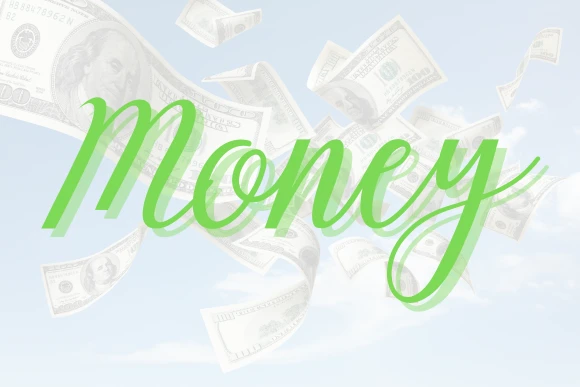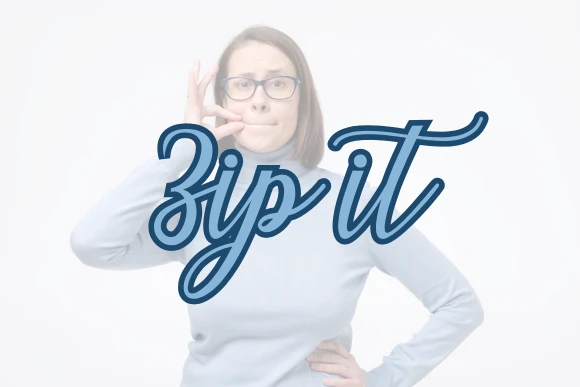
Bring positivity and warmth to your designs with Happiness Font ā a joyful handwritten script created to add an uplifting touch to any project. Its smooth, playful strokes radiate friendliness and charm, making it ideal for designers, bloggers and small businesses who want their text to feel welcoming and approachable.
Use Happiness Font for greeting cards, wedding invitations, baby shower announcements, social media graphics, motivational quotes, packaging, logos, blogs and branding materials. The carefully crafted characters are legible, versatile and perfect for both print and digital applications.
Key Features:
-
Cheerful, handwritten script style
-
Uppercase & lowercase letters
-
Numbers, punctuation & symbols included
-
Alternates & ligatures for a more natural handwritten look
-
Multilingual support for extended Latin characters
-
Ideal For:
Wedding stationery, greeting cards, product packaging, branding, motivational quotes, blog headers, social media posts, event invitations, business logos, lifestyle content and digital downloads.